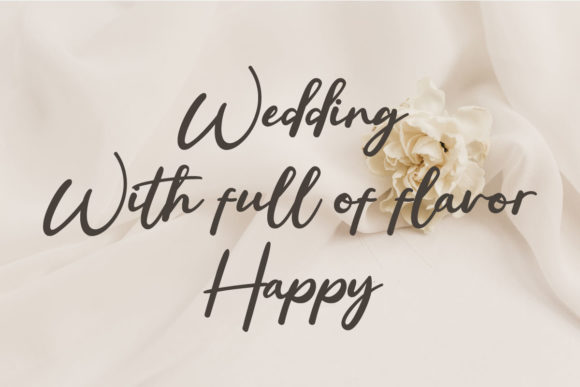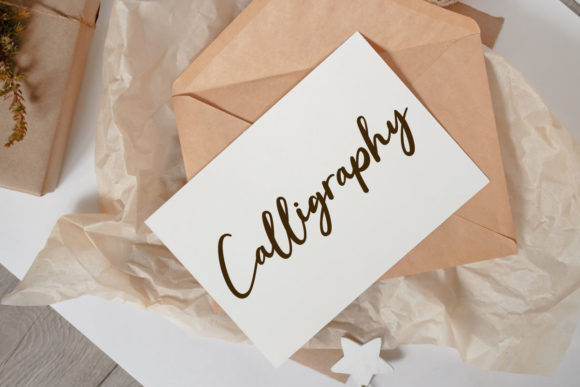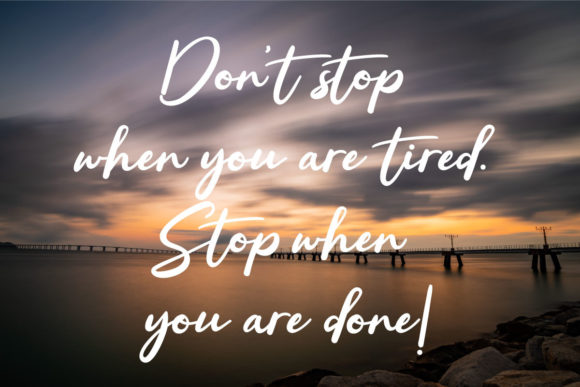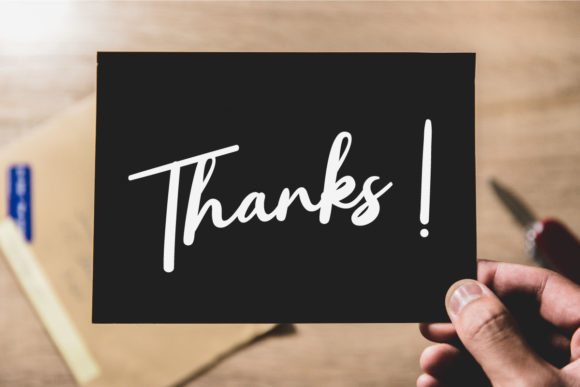
Introducing Apollo Font: Elevate Your Designs with Elegance and Sophistication
Are you a designer or crafter looking for a font that can add a touch of elegance and sophistication to your projects? Look no further than Apollo Font, a beautiful and flowing handwritten font that’s perfect for a wide range of applications. From wall displays and wedding invitations to social media post logos, advertisements, product packaging, and more, Apollo Font is the ideal choice for anyone seeking impressive typography.
What Makes Apollo Font Special?
Apollo Font is a stunning handwritten font that’s designed to make your designs stand out. Its flowing lines and beautiful curves give it a unique and elegant feel that’s sure to capture the attention of your audience. Whether you’re creating a wedding invitation, a product label, or a social media post, Apollo Font is the perfect choice for adding a touch of sophistication and style.
Uses for Apollo Font
Apollo Font is incredibly versatile and can be used for a wide range of projects, including:
- Wall displays: Add a touch of elegance to your wall displays with Apollo Font.
- Wedding invitations: Make your wedding invitations truly special with this beautiful handwritten font.
- Social media post logos: Stand out on social media with eye-catching logos and graphics featuring Apollo Font.
- Advertisements: Add a touch of sophistication to your ads with this elegant font.
- Product packaging: Make your products stand out on store shelves with beautiful packaging featuring Apollo Font.
- Product designs: Add a touch of elegance to your product designs with this stunning font.
- Labels: Create beautiful labels for your products or gifts with Apollo Font.
- Photography: Add a touch of sophistication to your photography with elegant watermarks featuring Apollo Font.
- Invitations: Create beautiful invitations for any occasion with this stunning handwritten font.
- Stationery: Add a touch of elegance to your stationery with Apollo Font.
Why Choose Apollo Font?
There are many reasons why Apollo Font is the perfect choice for designers and crafters, including:
- Elegant and sophisticated: Apollo Font adds a touch of elegance and sophistication to any project.
- Versatile: This font can be used for a wide range of projects, from wall displays to product packaging.
- Beautiful and flowing: Apollo Font features beautiful, flowing lines that give it a unique and elegant feel.
- Easy to read: Despite its elegant feel, Apollo Font is easy to read and understand.
Tips for Using Apollo Font
Here are a few tips for getting the most out of Apollo Font:
- Use it sparingly: Apollo Font is a beautiful font, but it can be overwhelming if used too much. Use it sparingly to add a touch of elegance to your designs.
- Pair it with other fonts: Apollo Font pairs well with other fonts, so don’t be afraid to experiment with different combinations.
- Experiment with colors: Apollo Font looks great in a variety of colors, so don’t be afraid to experiment and find the perfect color for your design.
| Font Name | Apollo Font |
| Author | Arief Indra Pratama |
Apollo Font is a beautiful and flowing handwritten font that’s perfect for designers and crafters looking to add a touch of elegance and sophistication to their projects. With its elegant feel, versatility, and ease of use, Apollo Font is the ideal choice for anyone seeking impressive typography. Whether you’re creating a wedding invitation, a product label, or a social media post, Apollo Font is sure to make your designs stand out.